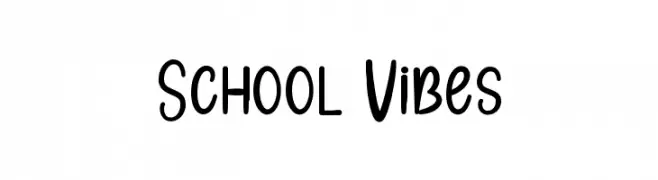
( Fonts by Zetafonts )
A clean, minimalist font with thin, uniform strokes and a modern aesthetic.
( Fonts by Zetafonts )
A sleek, extra-light italic font with a modern and elegant style.
( Fonts by Zetafonts )
A bold, playful font with an inline style that adds depth and character.
( Fonts by Zetafonts )
A modern, thin, and sleek font with consistent spacing and sharp angles.
( Fonts by Zetafonts )
A sleek, modern italic font with clean lines and medium contrast.
( Fonts by Zetafonts )
A clean, modern sans-serif font with a light weight and slightly condensed style.
( Fonts by Zetafonts )
A sleek, modern, light italic font with smooth curves and clean lines.
( Fonts by Zetafonts )
A clean, modern sans-serif font with a slightly condensed style.
A bold, angular font with a geometric and modern design.
A modern sans-serif font with geometric shapes and uniform strokes.
A modern, narrow typeface with clean lines and consistent stroke widths.
A bold, elegant script font with high contrast and flowing curves.
( Fonts by Forberas Club )
An elegant, flowing script font with a handwritten style.
Casual handwritten script font.
( Fonts by twinletter )
A bold, geometric font with a strong industrial and futuristic feel.
A whimsical and playful font with decorative curls and loops.
A whimsical, curly font with consistent stroke thickness and playful loops.
( Fonts by Gassstype )
A bold, rounded font with a playful and friendly style.
A collection of festive and decorative holiday-themed illustrations.
( Fonts by Pen Culture )
( Fonts by Gassstype )
A bold, hand-drawn font with a vintage, impactful style.
( Fonts by PutraCetol Studio )
A bold, playful, and cartoonish hand-drawn font with exaggerated curves.
( Fonts by PutraCetol Studio )
A bold, decorative font with playful patterns and embellishments.
Casual handwritten font with playful style.
( Fonts by Masa Aska Sanurumi )
A horror-themed font with dripping, eerie characters.
( Fonts by Masa Aska Sanurumi )
An intricate, gothic-style font with dramatic flourishes and sharp edges.
A varied set of horror-inspired display fonts with dramatic and eerie styles.
A diverse set of horror-inspired decorative display fonts with dramatic and eerie styles.
( Fonts by Gassstype )
A bold, distressed font with a vintage, rugged appearance.
( Fonts by Wahyu Studio )
A playful, handwritten script font with medium contrast and decorative flair.
( Fonts by Jonathan S. Harris )
A bold, wavy, and playful decorative font with a dynamic texture.
A bold, three-dimensional font with a retro comic book style.
( Fonts by Wahyu Studio )
A bold, geometric font with a modern and assertive style.